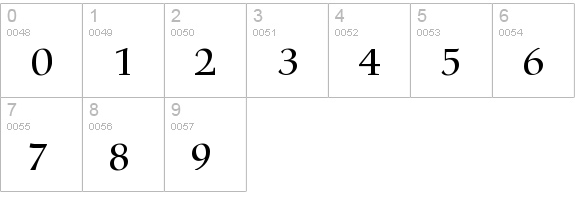
Carmine Normal Font Details
Carmine Normal is the standard, neutral variant in the Carmine typeface family \xE2\x80\x94 well suited to general body text, paragraphs, and standard typographic work.
Carmine Normal font is a timeless and versatile typeface that exudes elegance and sophistication. With its classic serifs and clean lines, Carmine Normal is perfect for adding a touch of refinement to any design project. This font is ideal for a wide range of applications, from branding and advertising to editorial design and packaging. What sets Carmine Normal apart is its unique blend of traditional and modern design elements, making it both timeless and contemporary. Whether you're looking to create a professional business card, a stylish website, or a sleek brochure, Carmine Normal has you covered. Best of all, Carmine Normal is available for free download at FontsMarket.com. This means you can easily access this premium font without breaking the bank. Don't miss out on the opportunity to elevate your designs with the sophisticated charm of Carmine Normal. Download it now and start creating stunning visuals that leave a lasting impression.